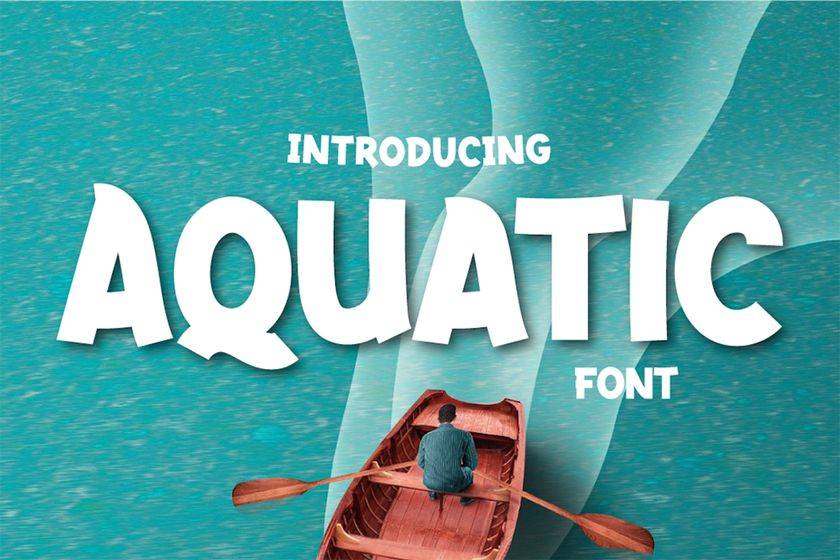
Aquatic is a bold, playful sans serif font with a lively, hand-drawn feel that brings a sense of fun and energy to any design. Its chunky letterforms and slightly irregular shapes make it perfect for casual, friendly branding, signage, or children’s projects where an approachable and dynamic look is desired. This font shines in headlines and logos, adding personality without sacrificing readability.
Aquatic Font
About Aquatic Font